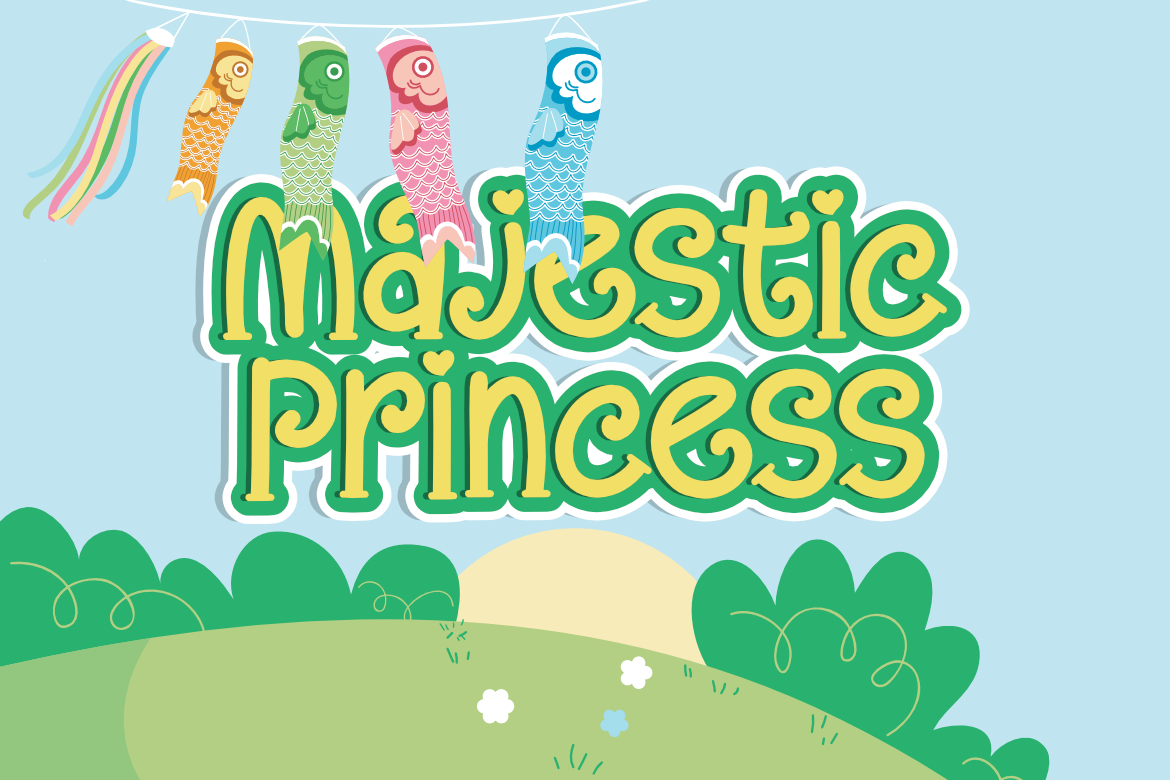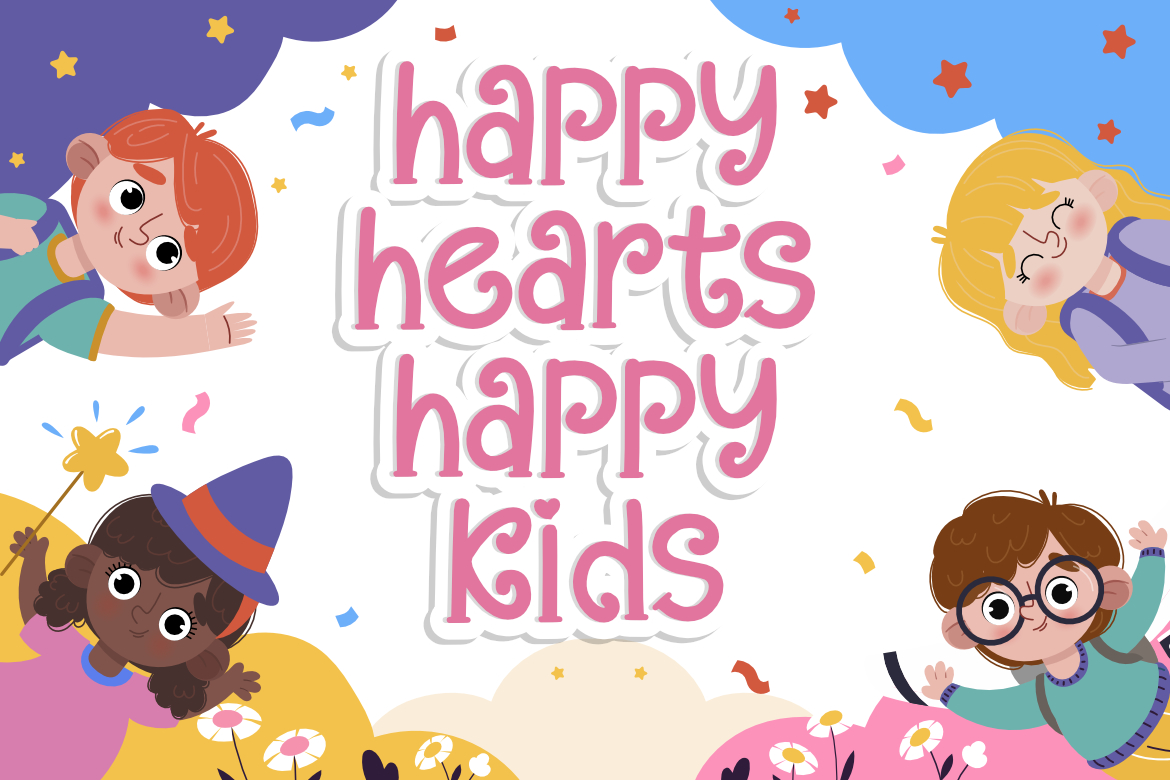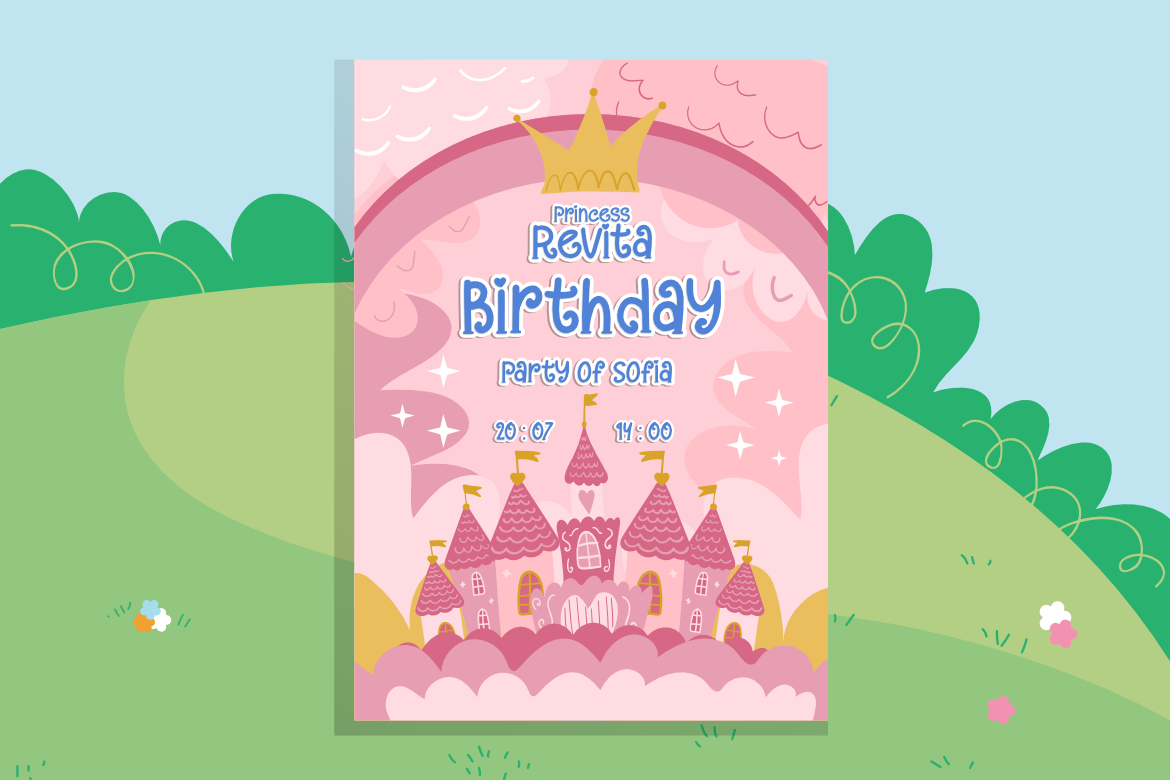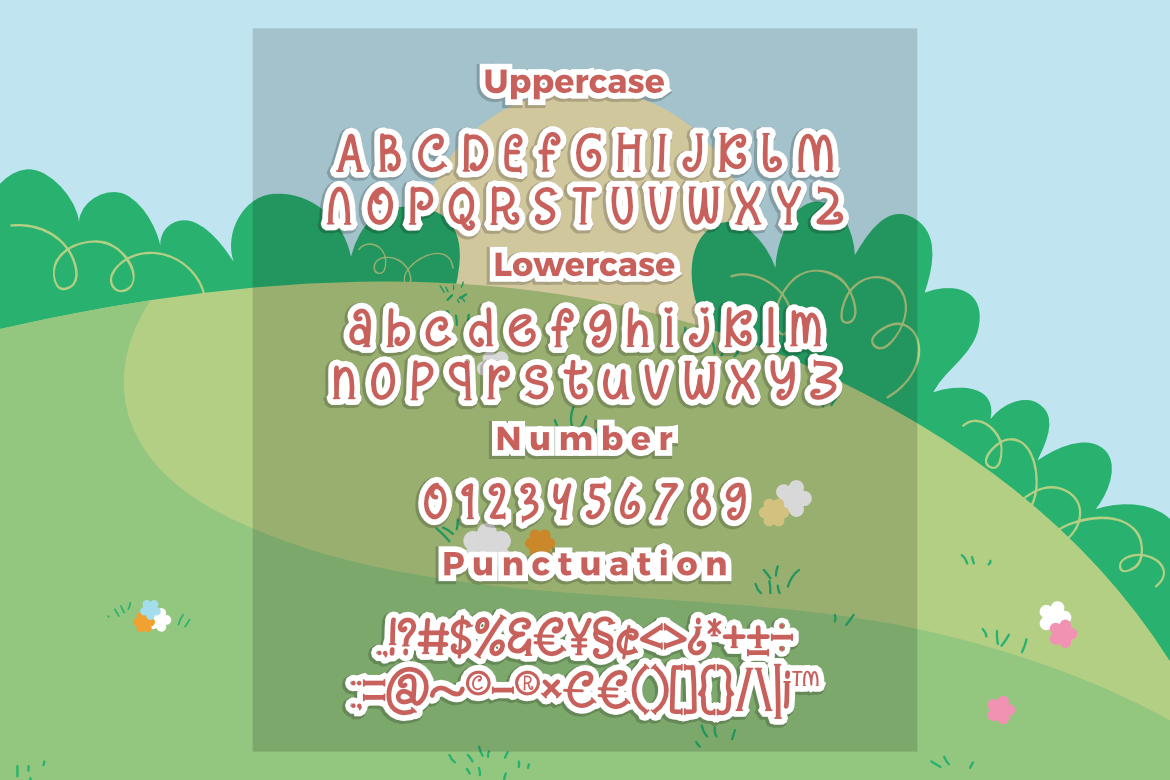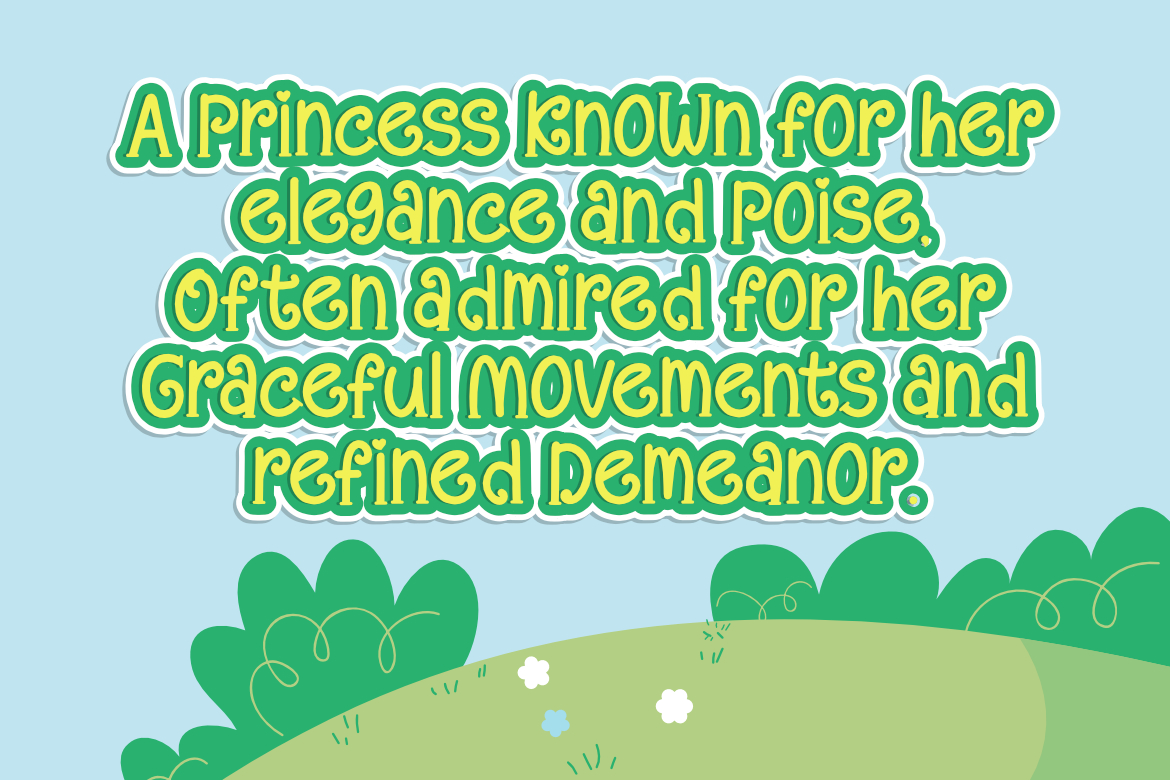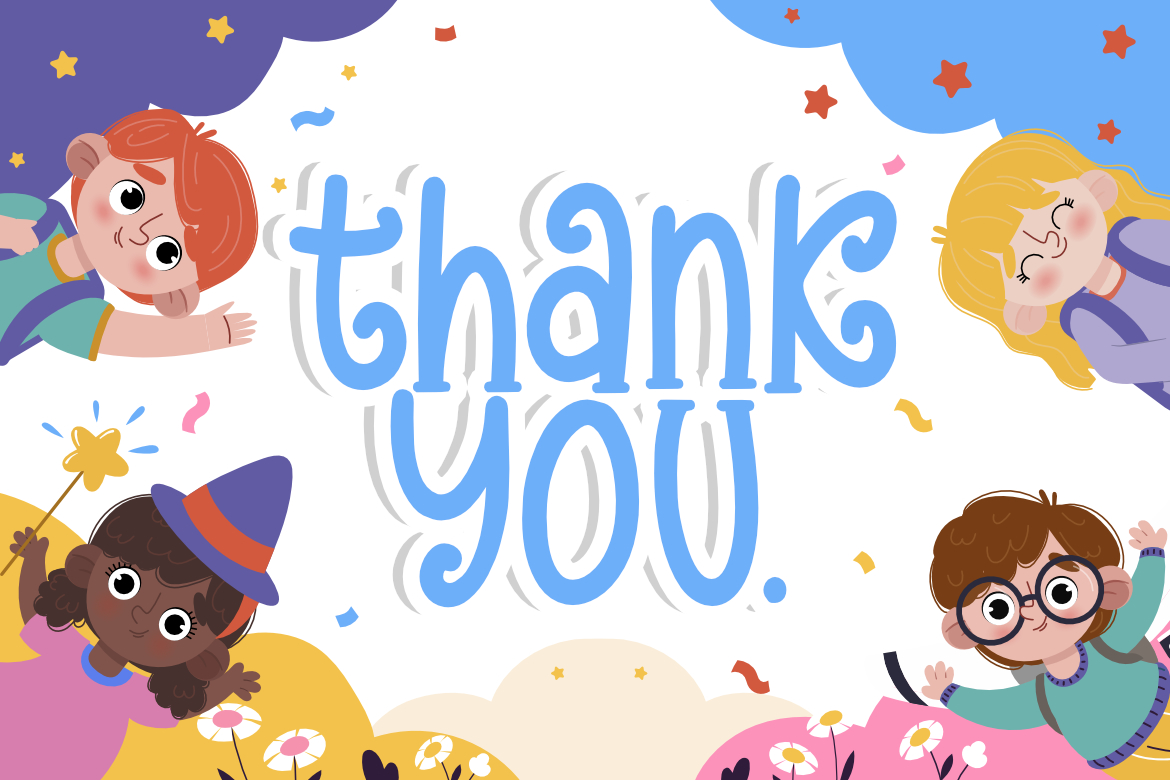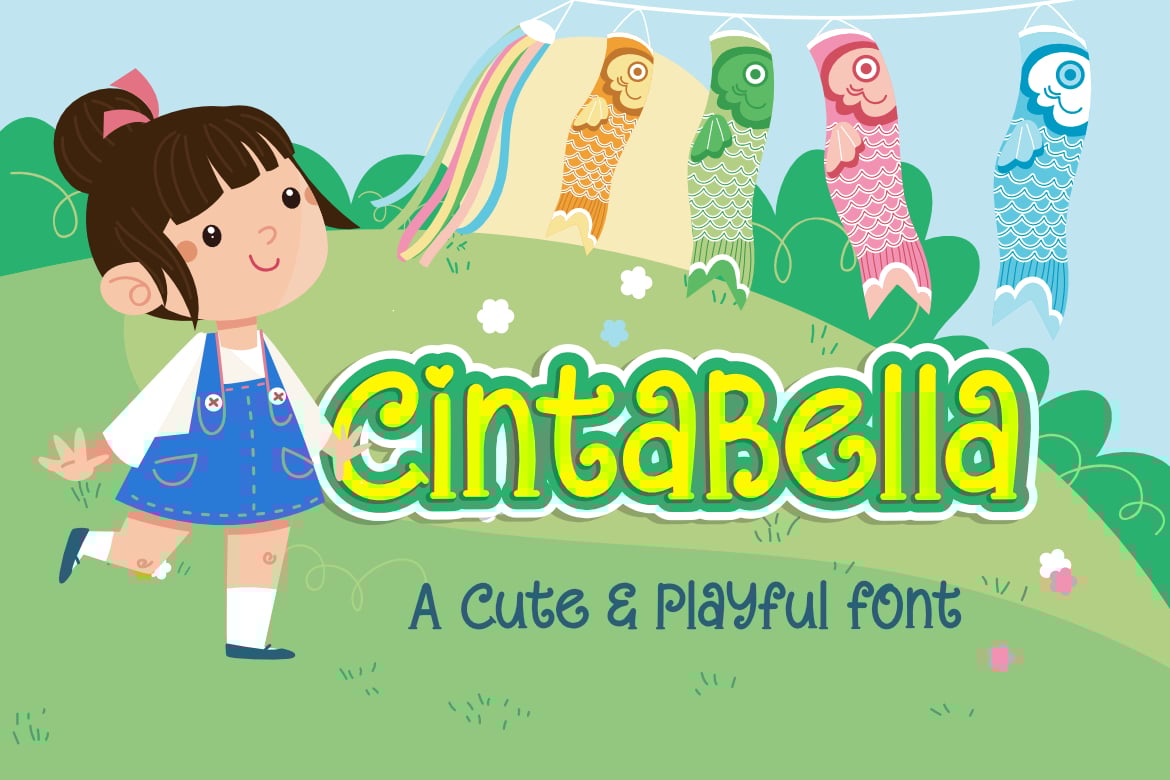
Cintabella a Cute & Playful Font
**Cintabella a Cute & Playful Font**, This font is made with a high premium quality level which you can use as flyers, quotes, posters, banners, packaging, merchandise, logotypes and much more.
* Uppercase
* Lowercase
* Number
* Punctuation